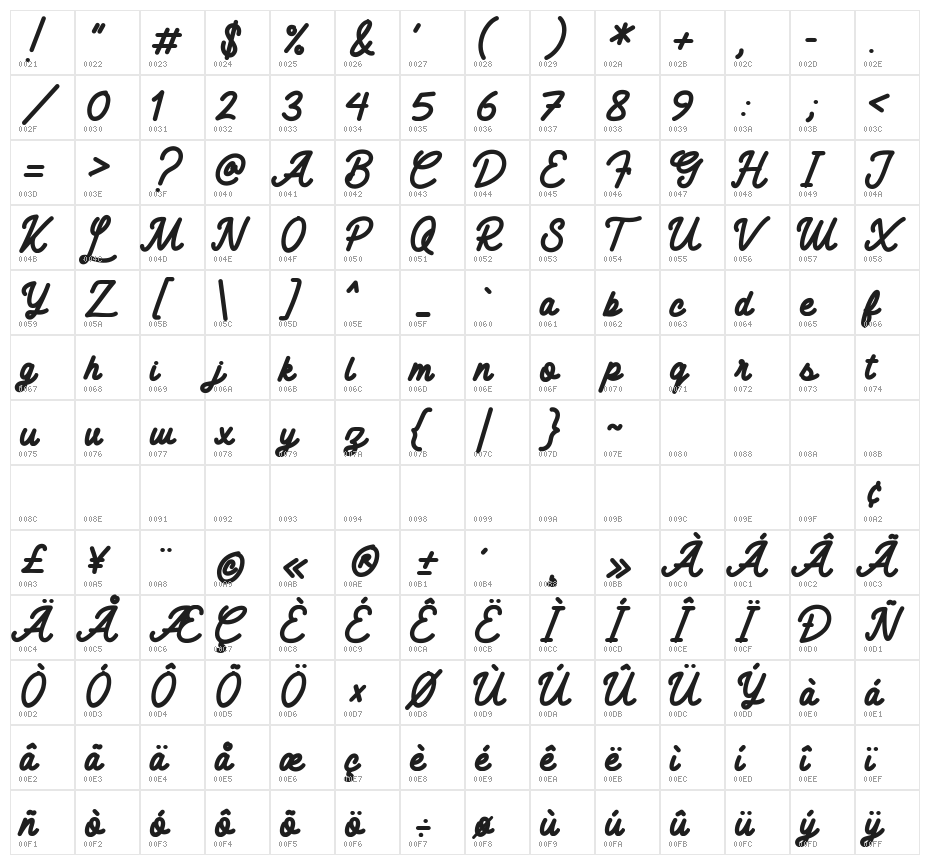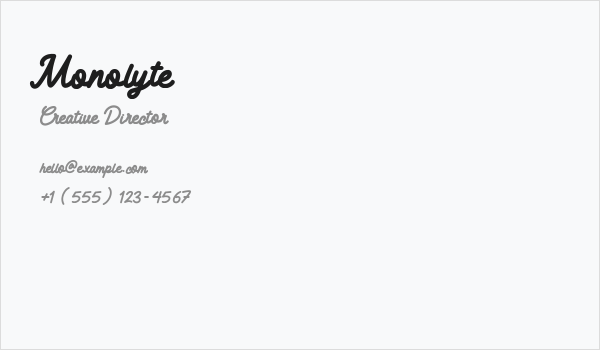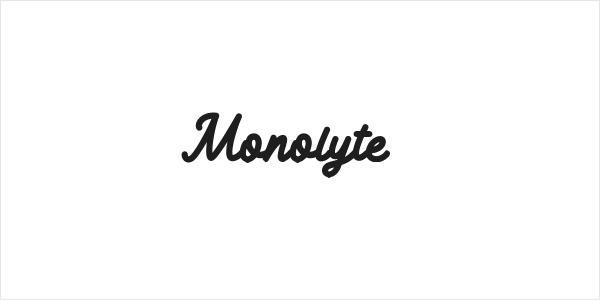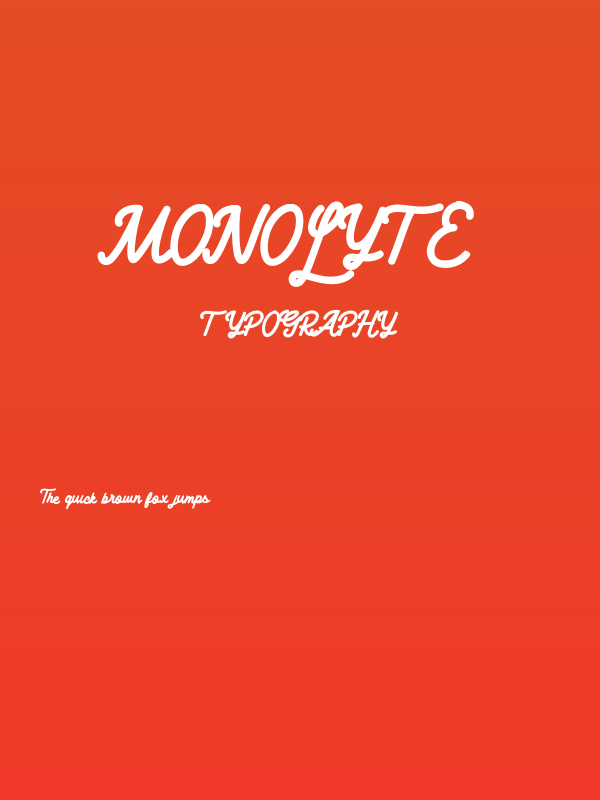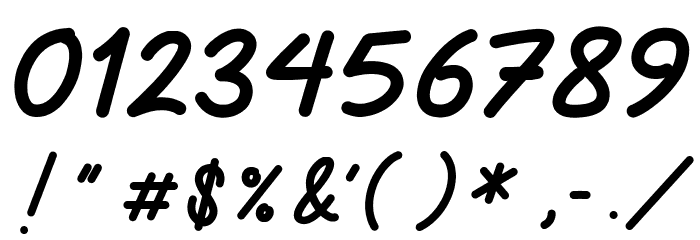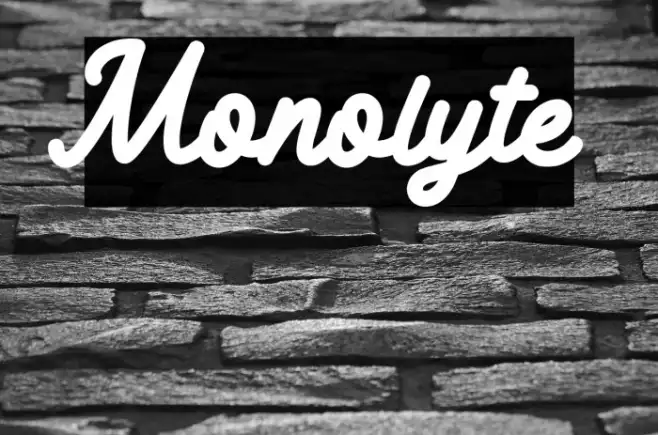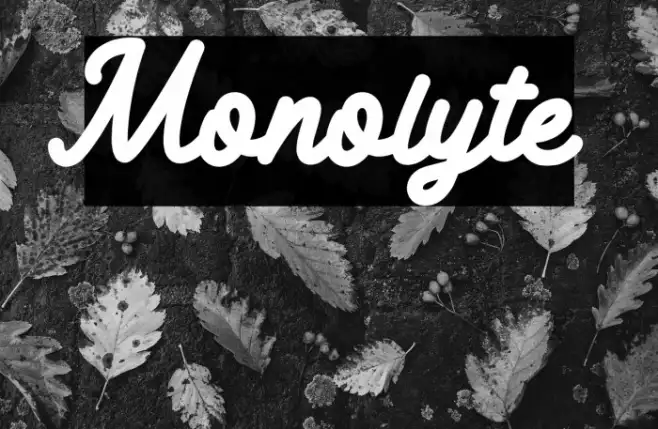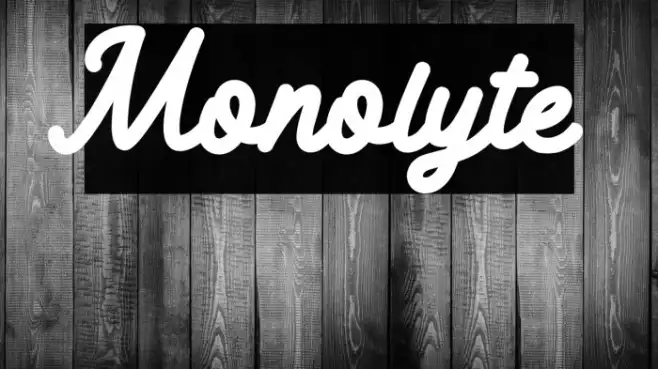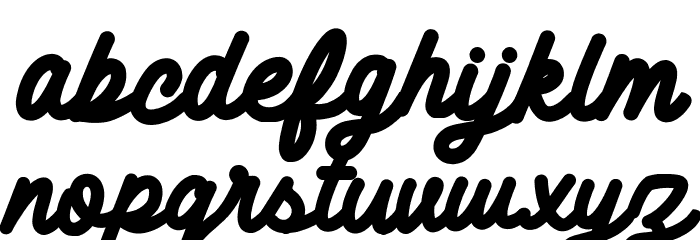
Monolyte Font
Monolyte Description
This font features a bold, cursive style with smooth, flowing lines that give it a handwritten appearance. The uppercase letters are elegantly connected, while the lowercase letters maintain a consistent flow, enhancing readability. The numbers and special characters are crafted with the same fluidity, ensuring a cohesive look across all characters. The strokes are thick, providing a strong visual impact, and the overall design is both stylish and approachable, making it suitable for a variety of creative applications.
| Proposed Projects | Ideal for branding projects, invitations, greeting cards, and any design requiring a personal touch. |